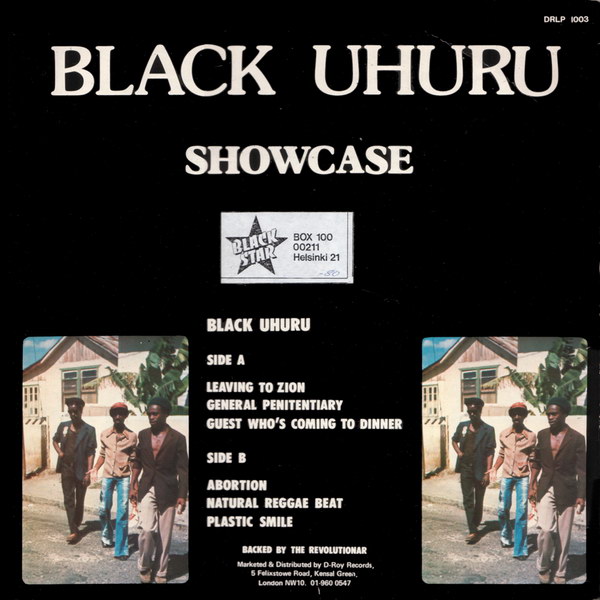
Showcase Font
Fonts in UseShowcase is a reggae album by Black Uhuru, released in 1979. It features classic tracks such as "Shine Eye Gal" and "General Penitentiary."
The typeface used on the cover is likely Souvenir Medium, which is an old-style serif font originally created by Morris Fuller Benton in 1914 for ATF. More information on this typeface is available here.